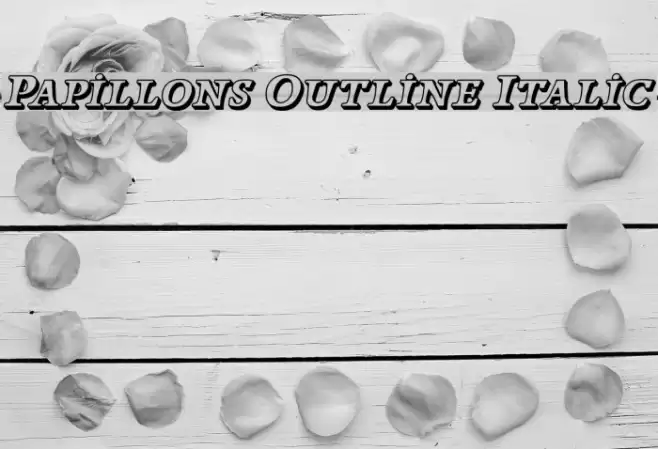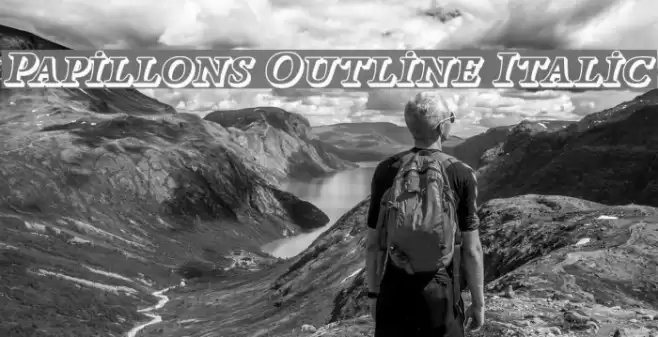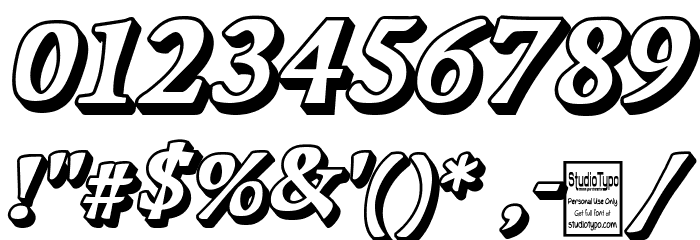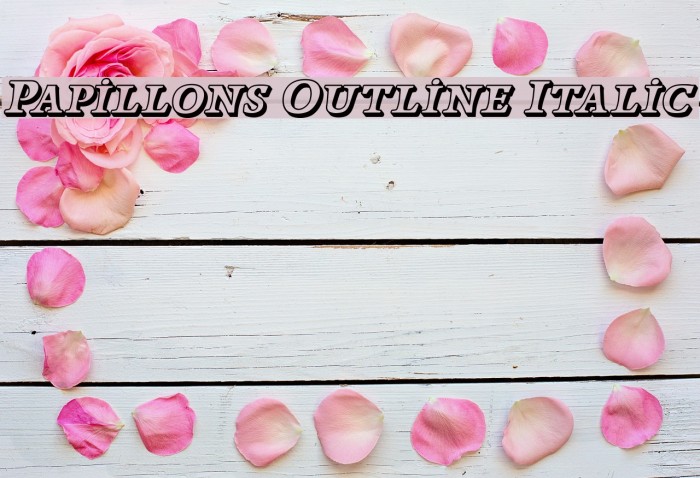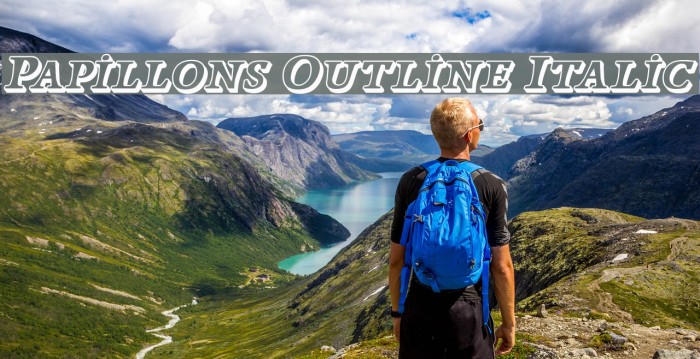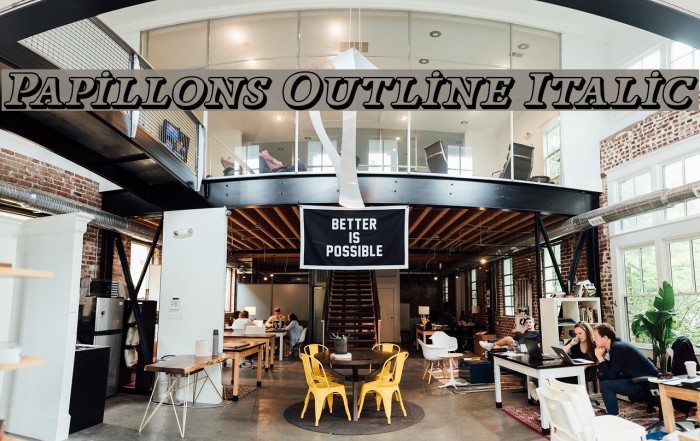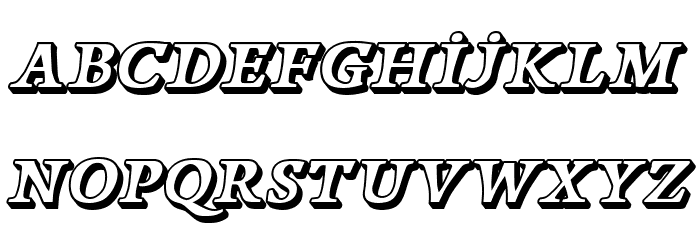
Papillons Outline Italic Font
Papillons Outline Italic Description
This font features a bold, outlined style with a distinct italic slant, giving it a dynamic and eye-catching appearance. The uppercase and lowercase letters maintain a consistent outline thickness, creating a uniform look across all characters. The numerals and special characters follow the same design principles, ensuring cohesion throughout. The font's boldness and outline make it ideal for standout text, while the italic angle adds a sense of movement and flair. Its design is both modern and playful, suitable for various creative applications.
A bold, outlined italic font with a modern and dynamic style from Uncategorized fonts.
- Proposed Projects: Ideal for headlines, posters, logos, and any design requiring a bold and distinctive look.